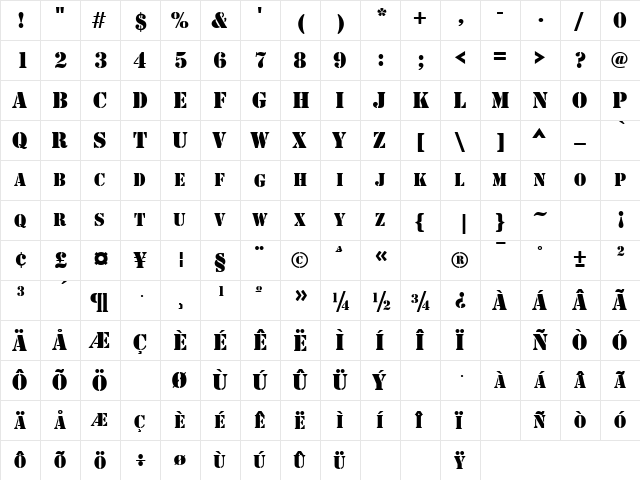
GE Army Block Caps Regular
Design Context for GE Army Block Caps Typeface
GE Army Block Caps draws on military and industrial lettering traditions, with forms that communicate strength and precision.
Designed for tactical branding, military-inspired apparel, action game UI, and utility-focused signage.
Pro Tip: Use GE Army Block Caps at medium-to-large sizes where its utilitarian structure can be appreciated — the character detail gets lost at small sizes.